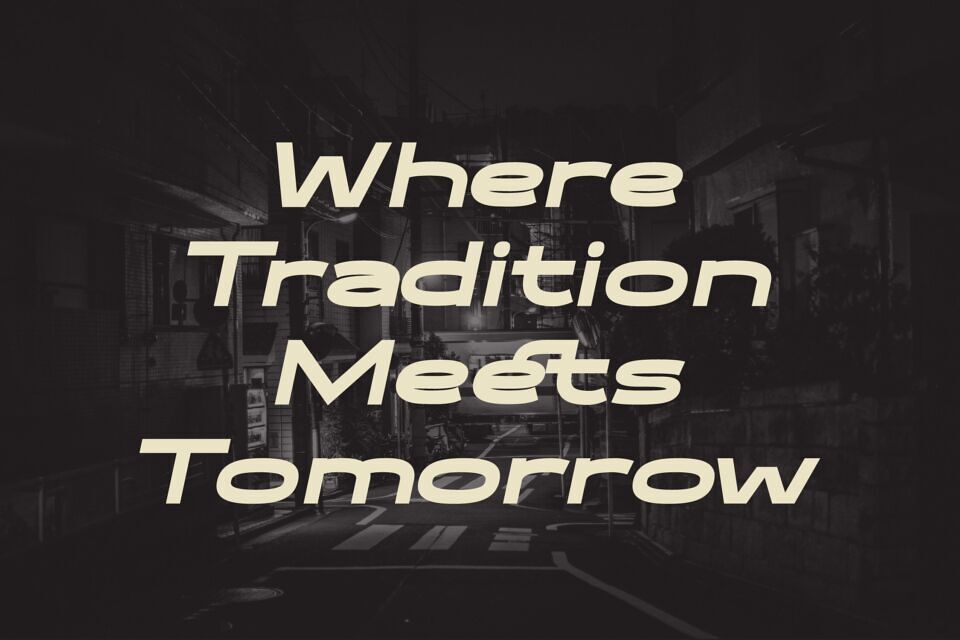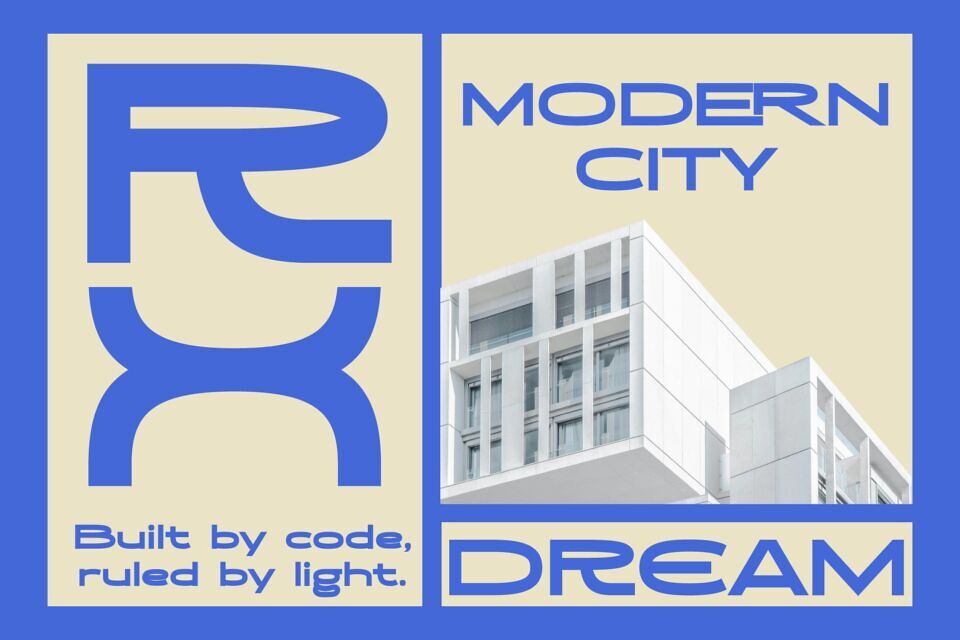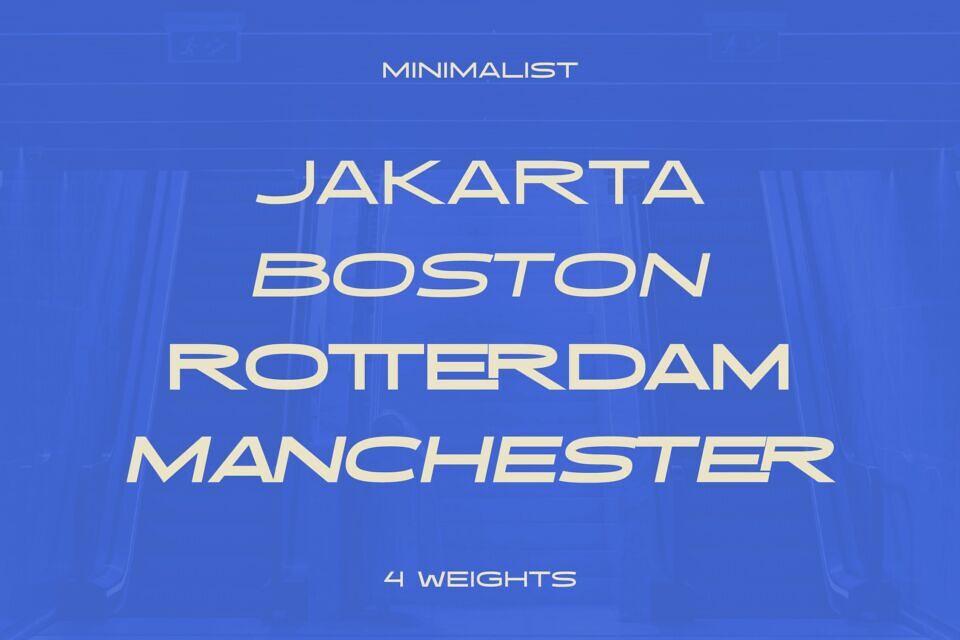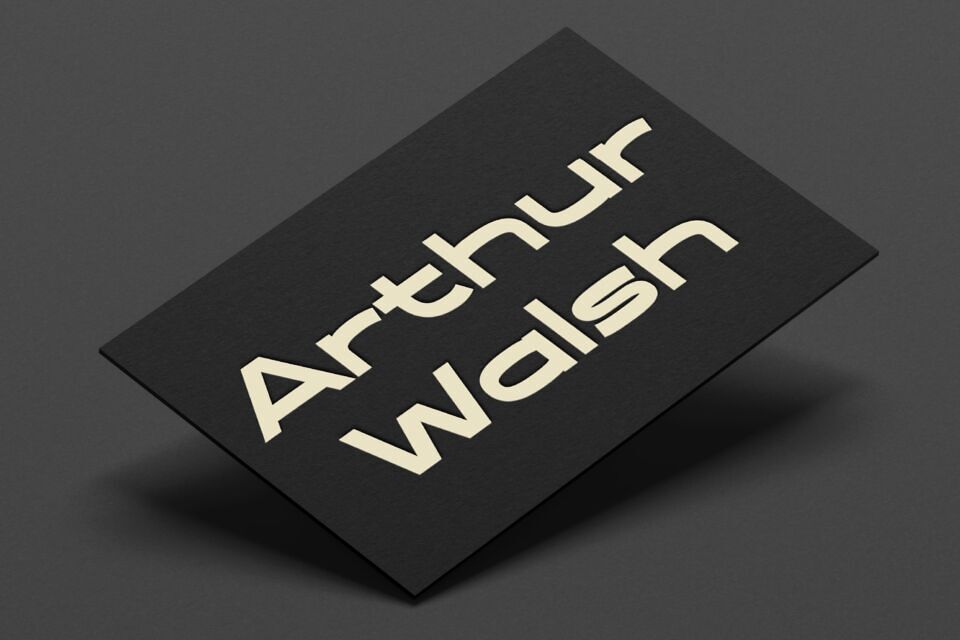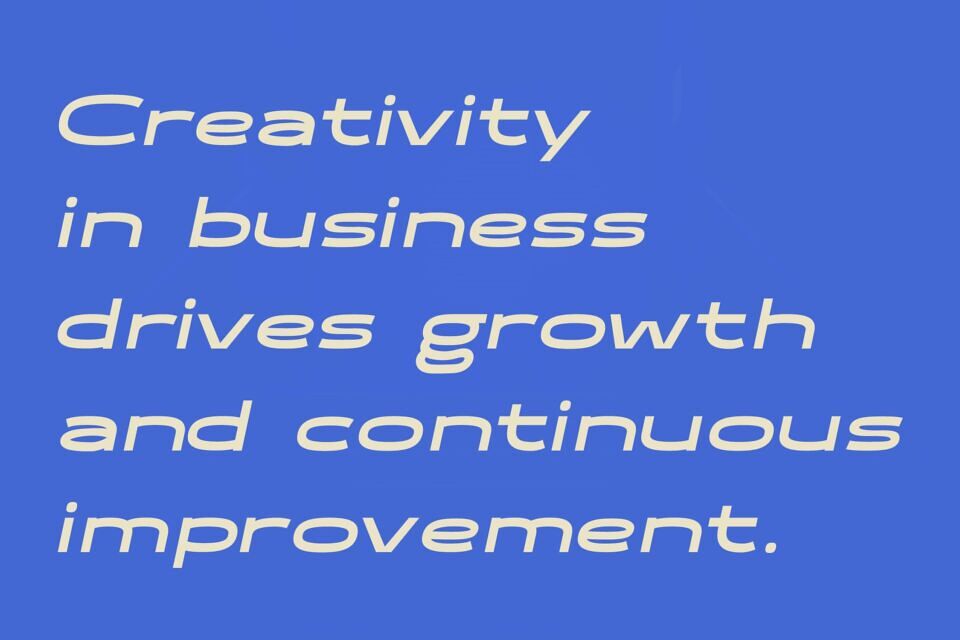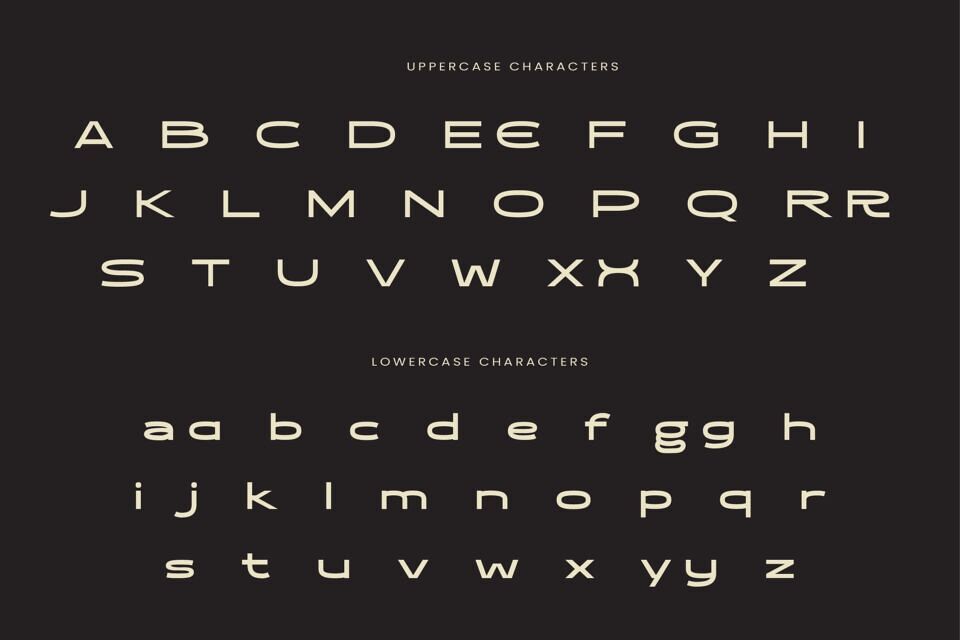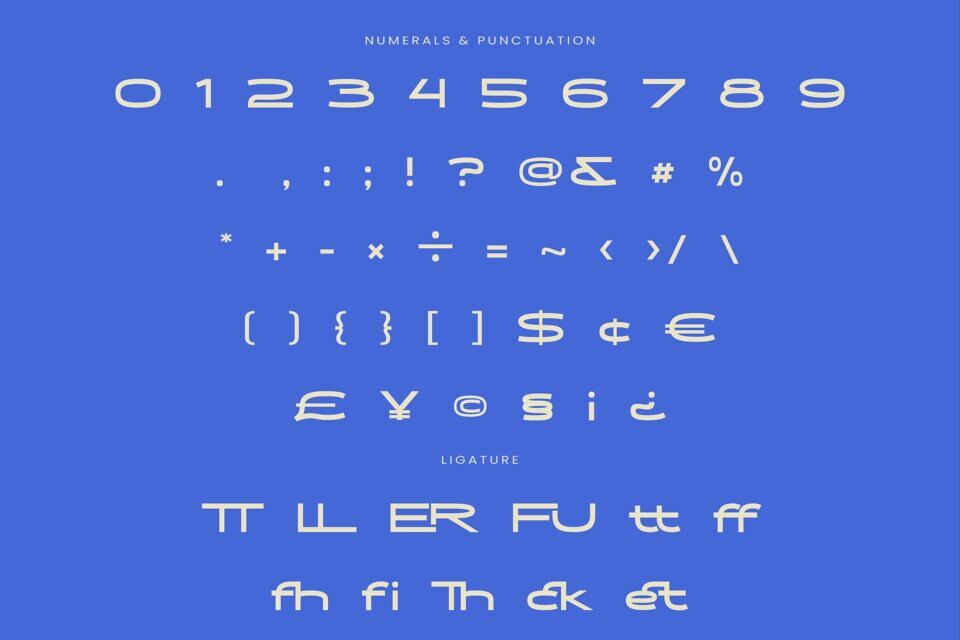
Afgeta Font
Introducing Afgeta, a display sans serif font inspired by futuristic, clean, sporty, and minimalist design styles. Afgeta is crafted to bring a sharp and elegant modern touch to any of your creative projects.
Afgeta is more than just a font—it’s a visual statement that enhances the identity of your brand or design. With bold yet balanced letterforms, Afgeta is perfect for a wide range of design needs such as branding, logos, editorials, apparel, posters, and digital interfaces.
Its clean yet unique design delivers a professional and modern feel. The addition of stylish ligatures makes your typography more dynamic and visually captivating.